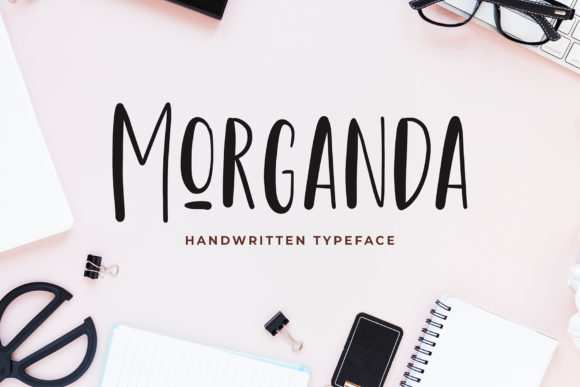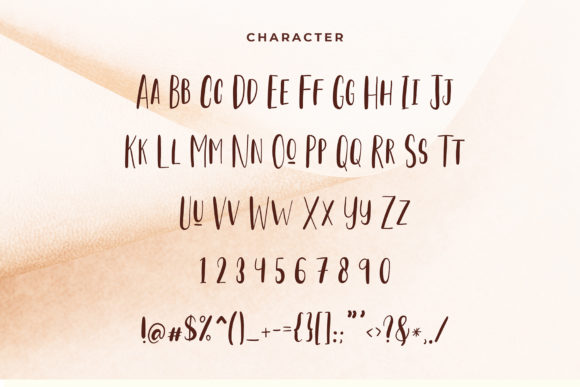
About Morganda Font
Morganda is a fresh sans serif font. It is perfect for branding projects, logos, t-shirt designs, social media posts and everything else.
It will give your next project that original look you were searching for.